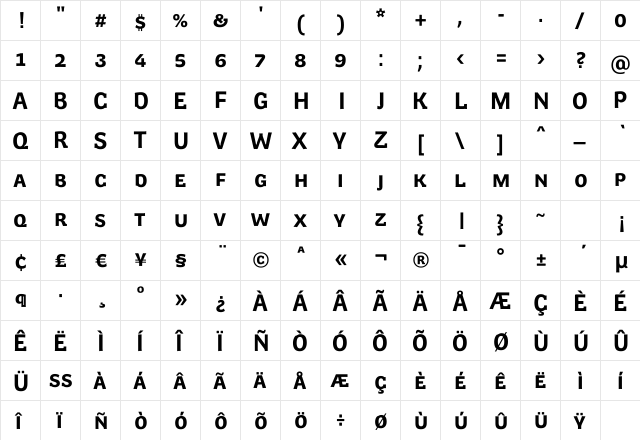
SpotkaBold SC Regular
Design Context for SpotkaBold SC Typeface
SpotkaBold SC is a composed and adaptable typeface that performs quietly and consistently across a wide range of design contexts. The heavy weight commands attention and anchors typographic hierarchies.